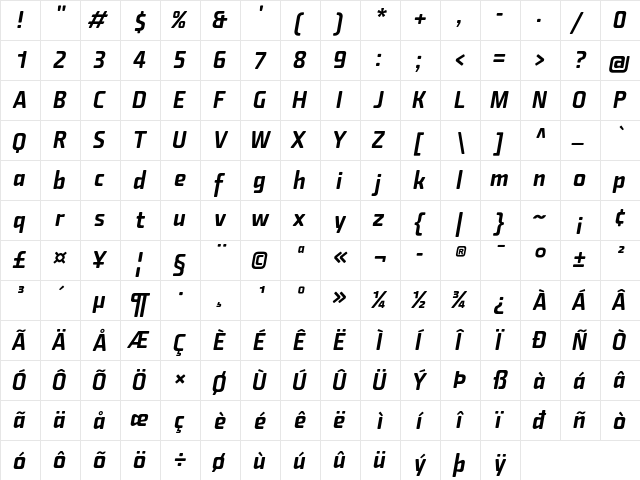
Fishmonger MS Italic Font Preview
Fishmonger MS Italic
Fishmonger MS Italic Font Details
Design Context for Fishmonger MS Typeface
Fishmonger MS offers clean, dependable letterforms without strong stylistic allegiance, making it a practical choice for designers who need flexibility. The dynamic lean of this cut emphasises speed and emphasis in any layout.
Pro Tip: Use Fishmonger MS for emphasis, pull quotes, and subheadings where its slanted energy can add rhythm to the layout.